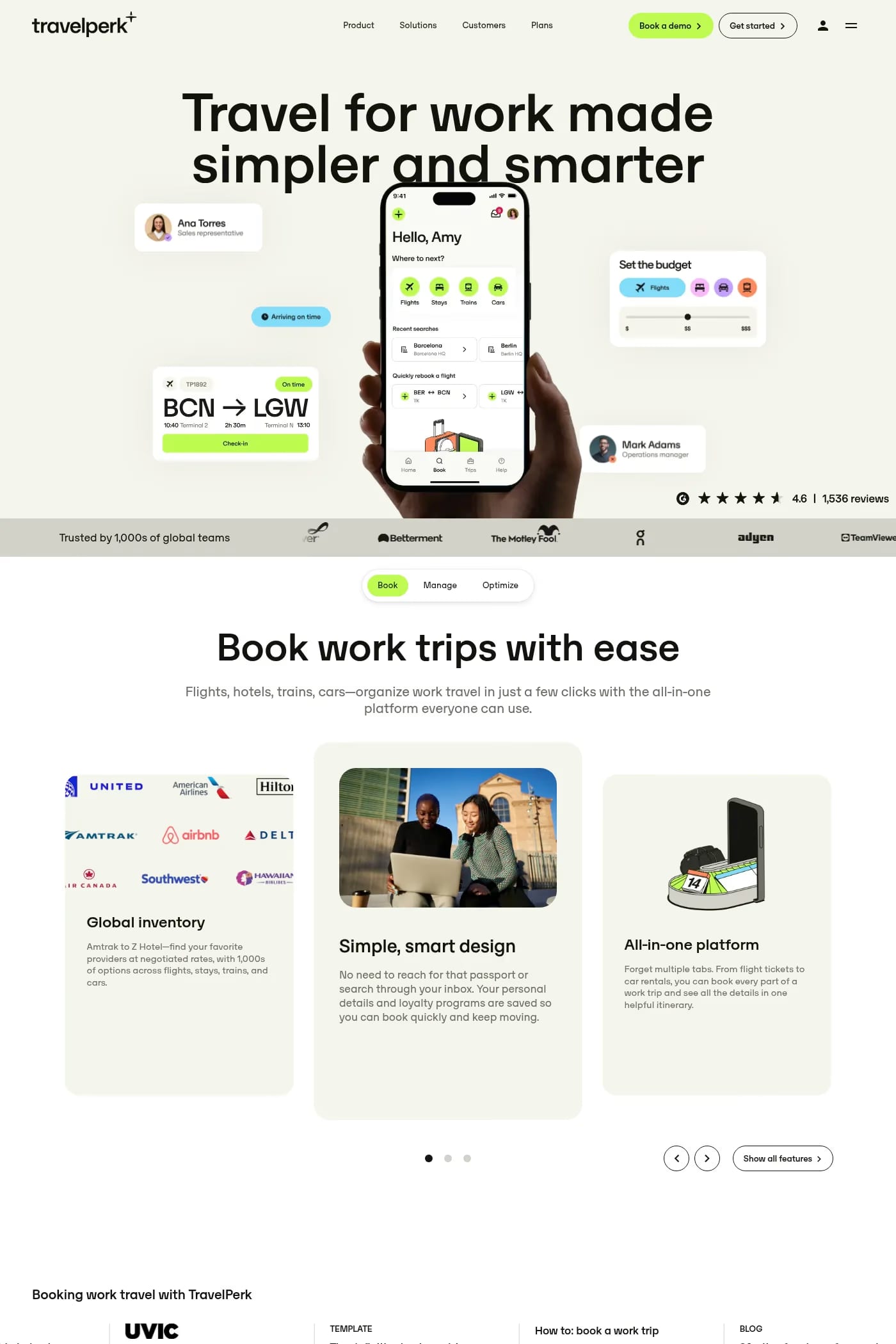
OT Sono is a sans-serif typeface from Omnitype.
Omnitype is a Swiss online type foundry, based in Lausanne. Dedicated to drawing, producing and distributing typefaces, run by Leonardo Azzolini and Simon Mager.
A1 features 1 website using OT Sono. It leans towards Illustration, Neon, and Sans-serif design styles, and it’s most often built with Next.js.